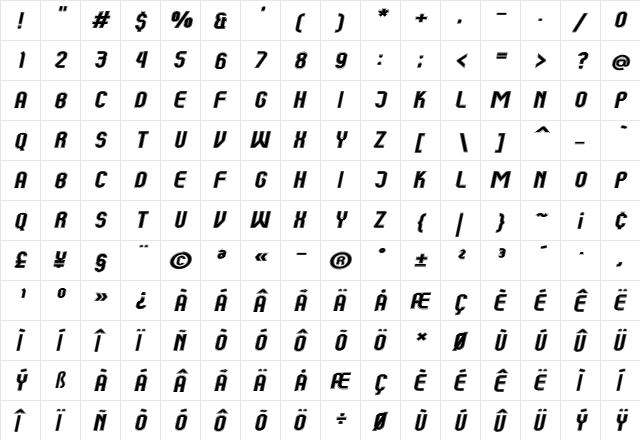
Kumba College Expanded Italic
| Foundry | Audry Kitoko Makelele |
| Designer | Audry Kitoko Makelele |
Design Context for Kumba Typeface
Kumba has the bold swagger of sports branding: strong, assertive letterforms designed to dominate headlines and jerseys alike. Its italic angle brings a sense of urgency and motion to the letterforms.
Built for sports team identities, athletic apparel, event posters, and high-energy promotional material.